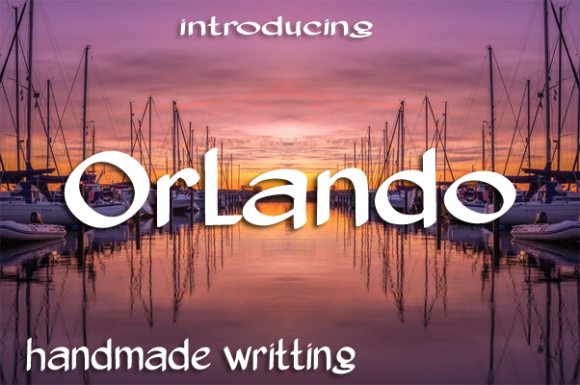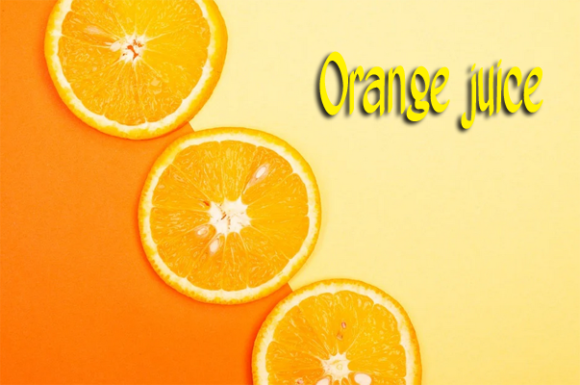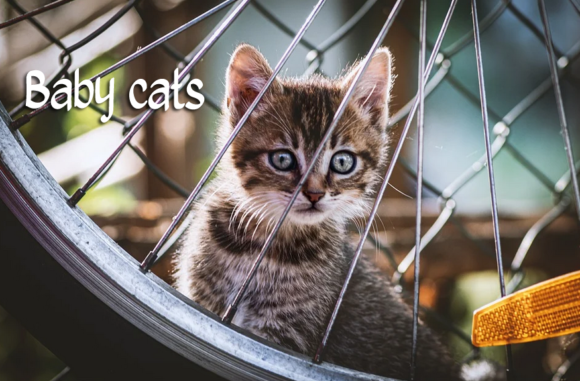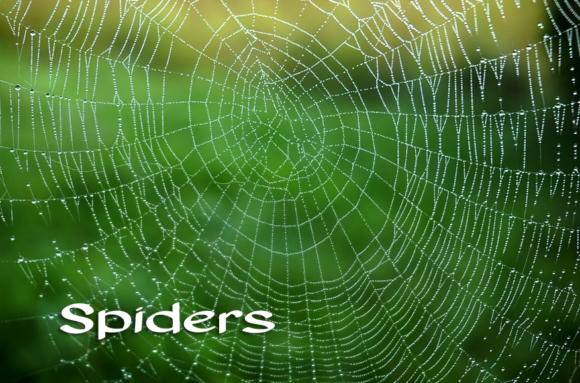
About Orlando Font
Orlando is a simple and clean handwritten font. No matter the topic, this font will be an incredible asset to your fonts’ library, as it has the potential to elevate any creation.